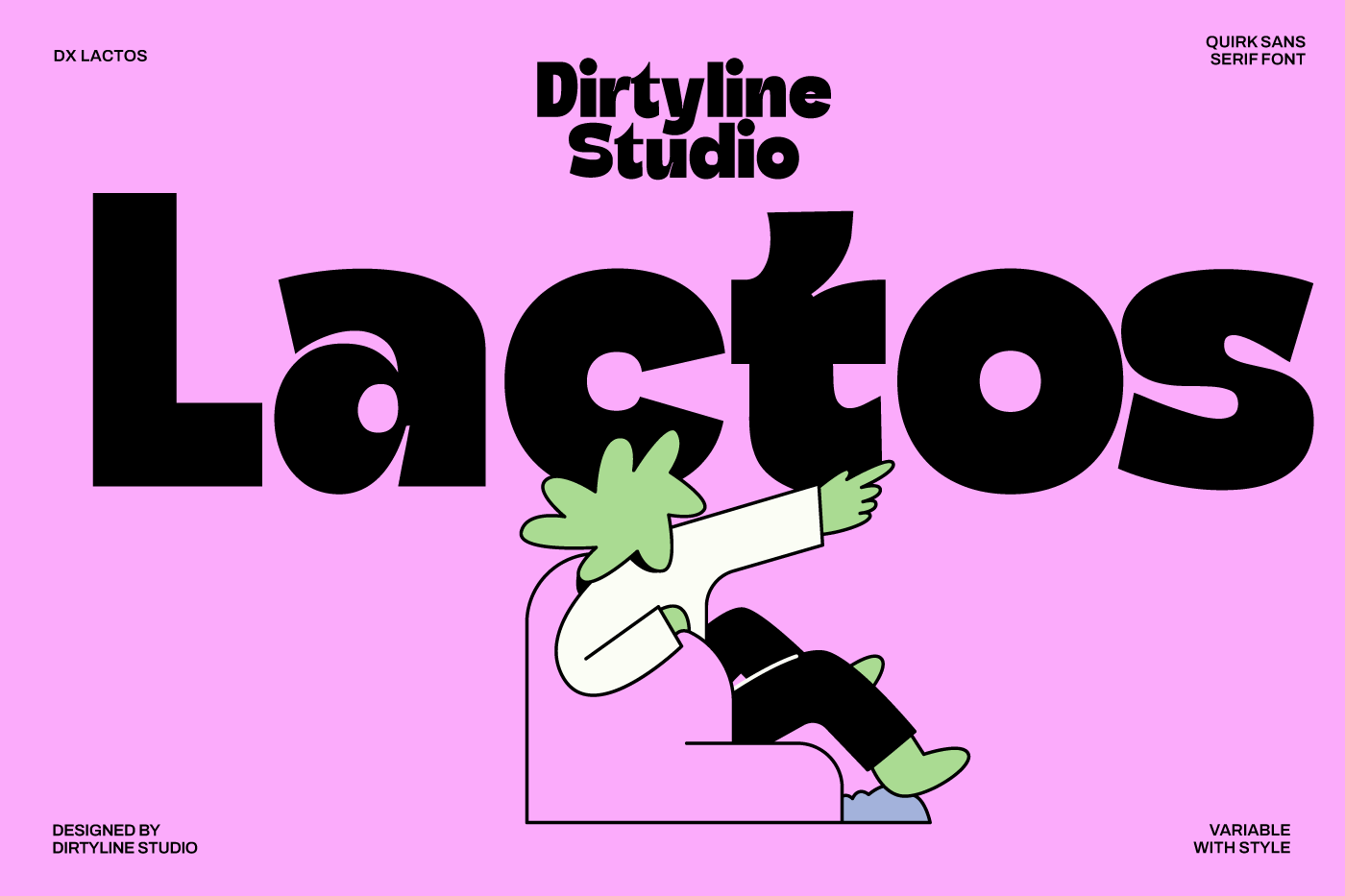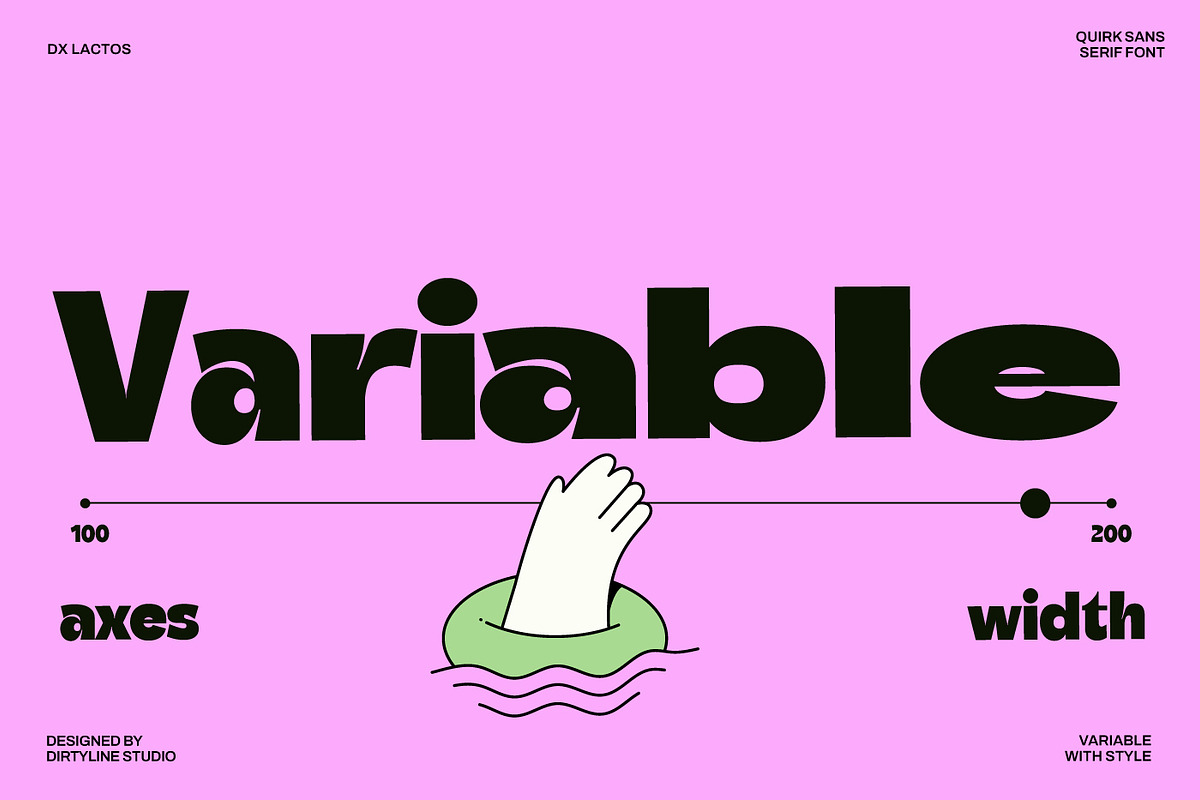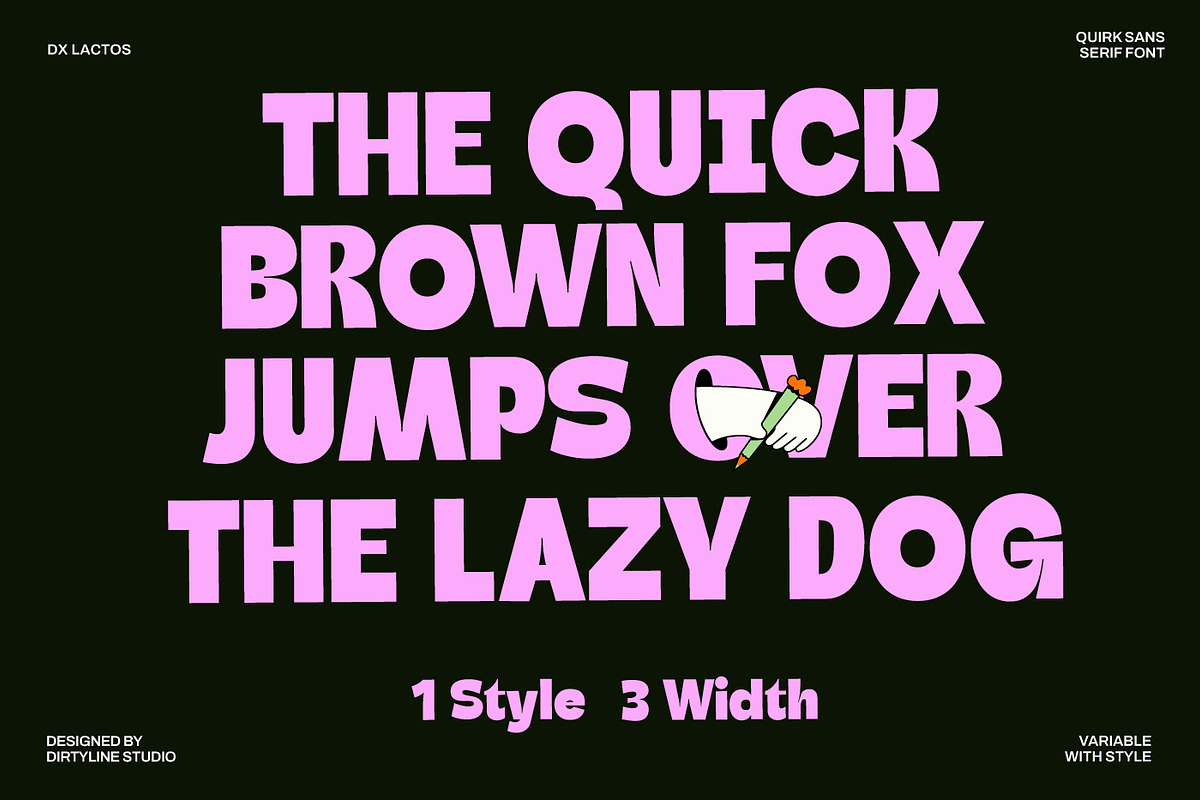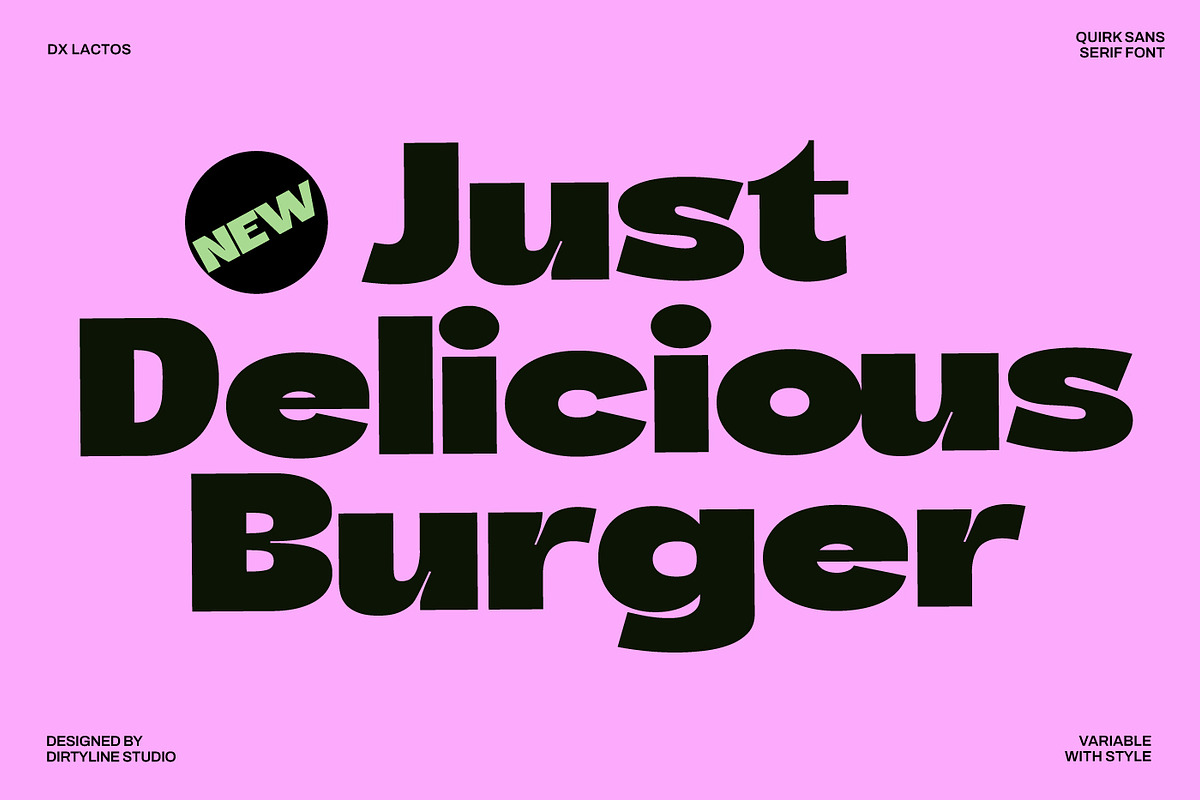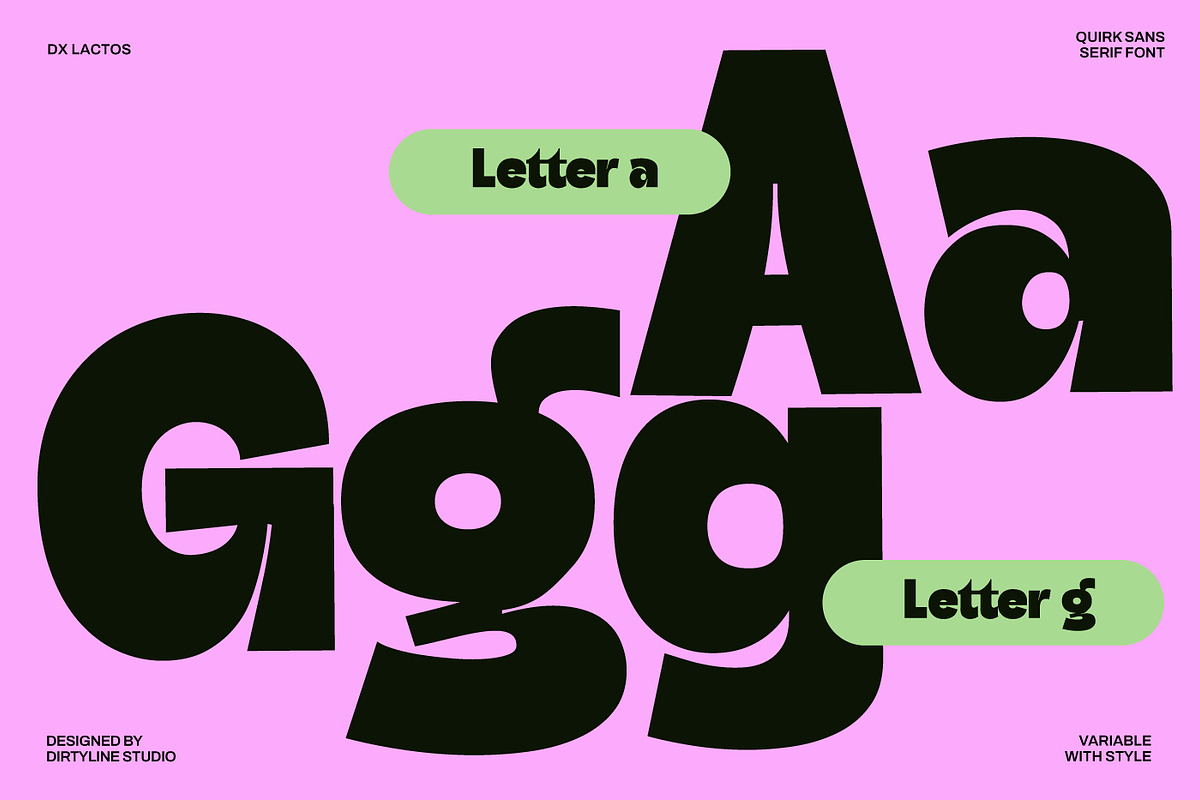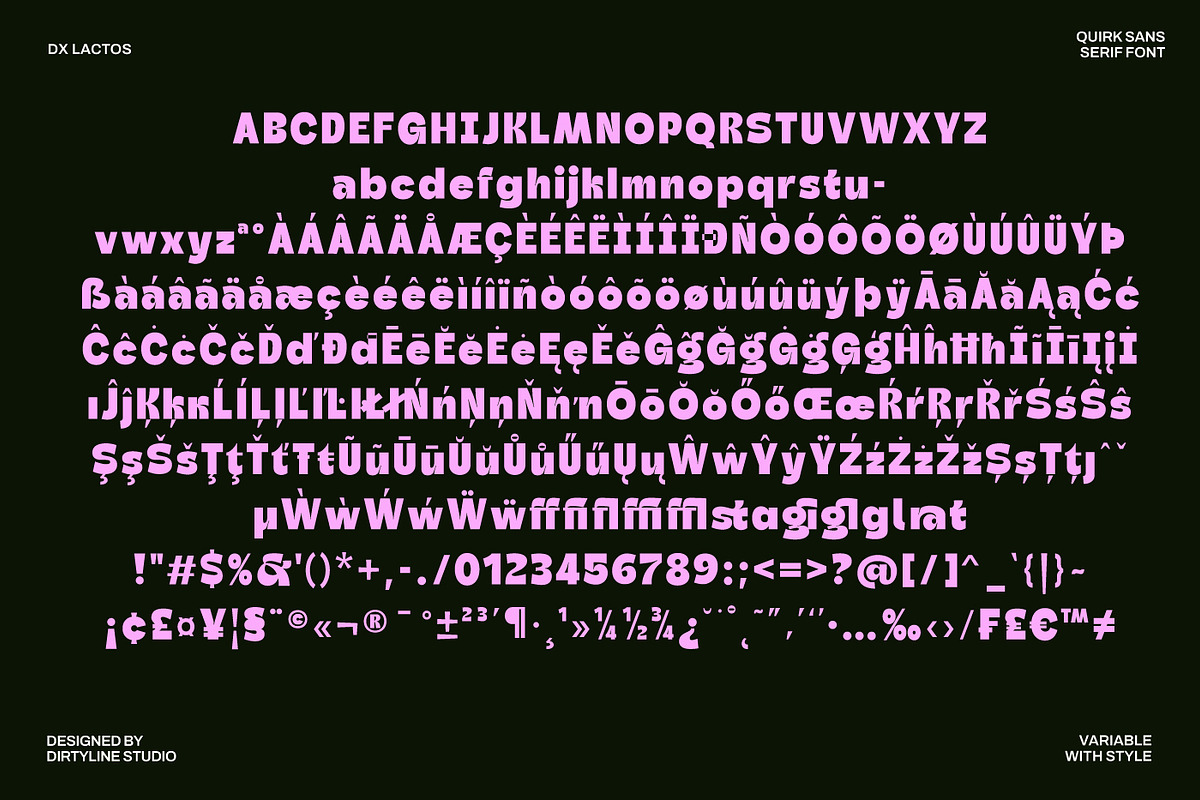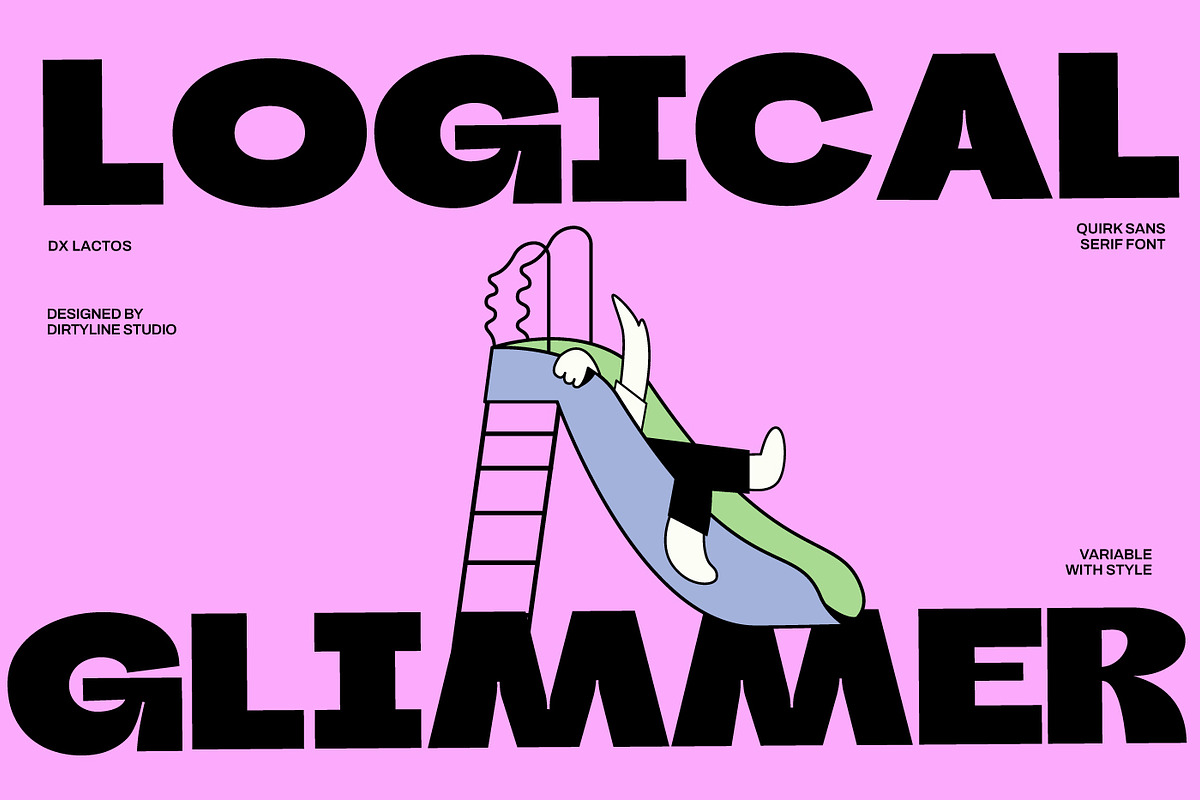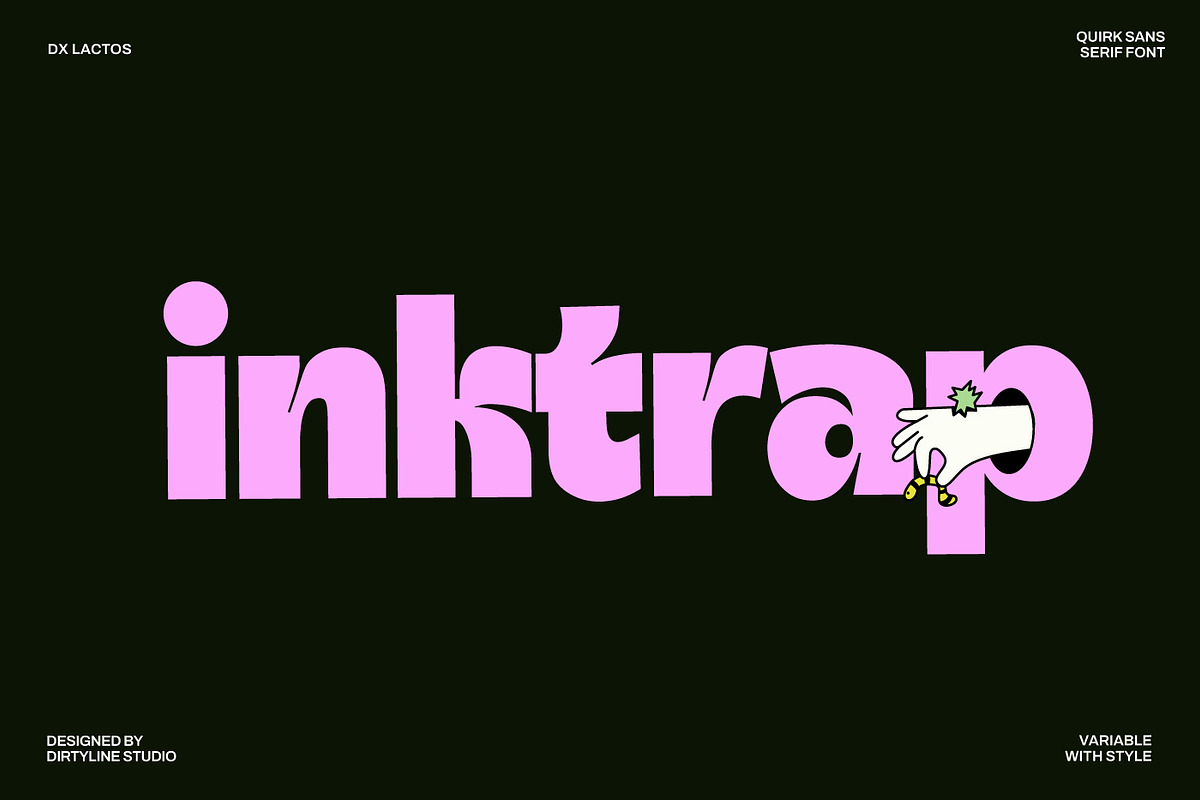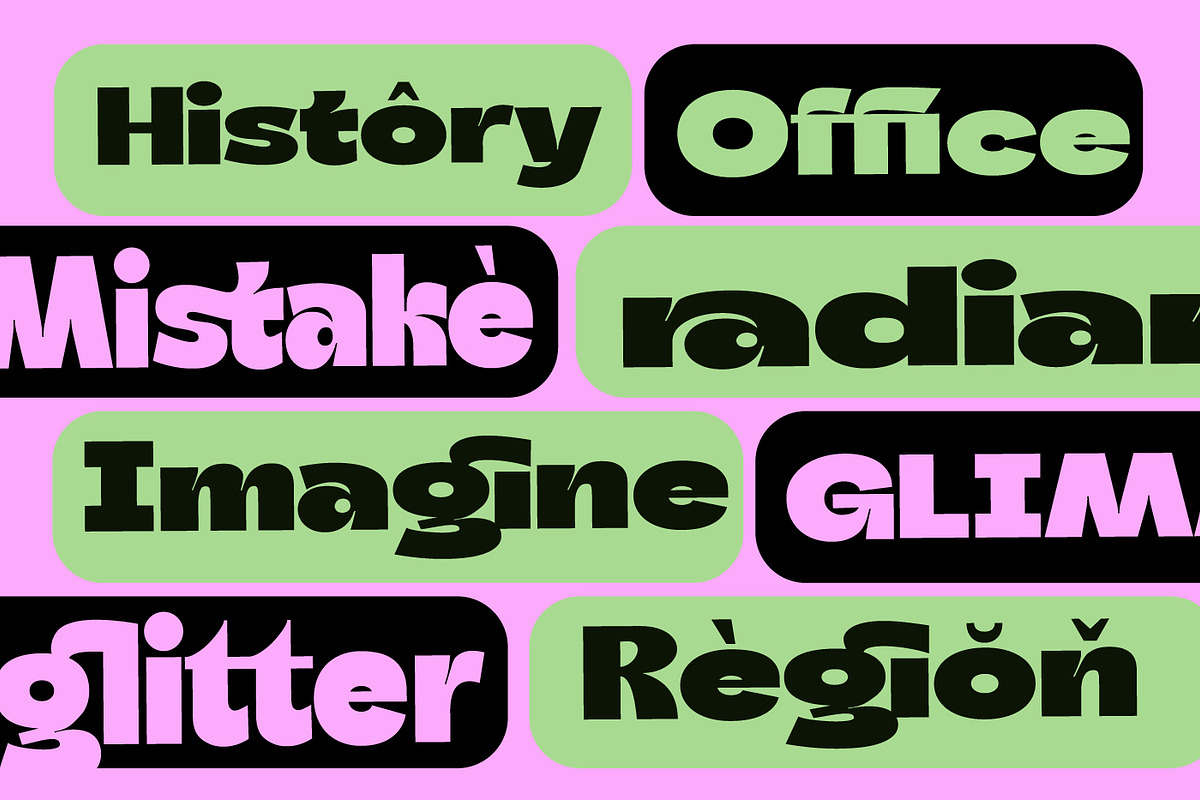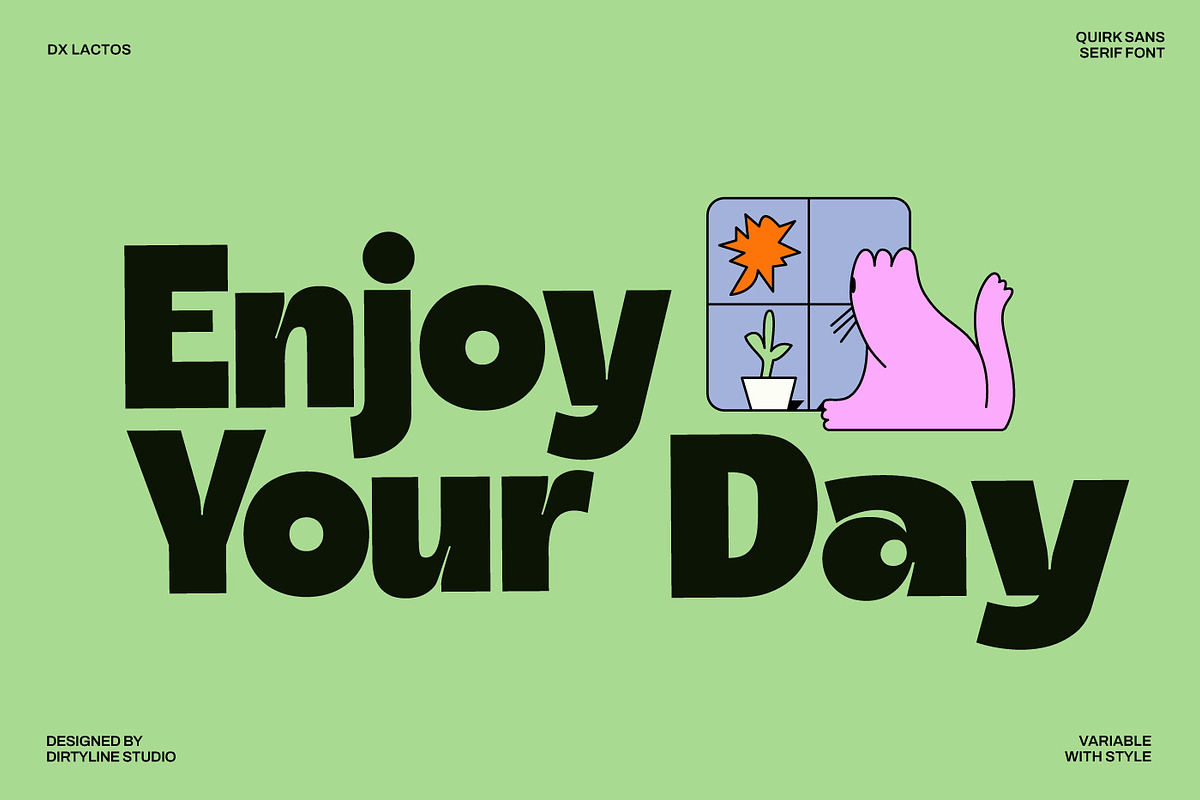
Dx Lactos - Quirk Font Variable
Introducing Dx Lactos, a font that breaks boundaries with its boldness and variable width, exuding a sense of fun and quirkiness. Designed to make an immediate impact, this font thrives in environments where grabbing attention is paramount. Its expanded and playful demeanor perfectly complements promotional materials for movies and series, seamlessly aligning with the aesthetic demands of leading entertainment platforms.
As a web font, Dx Lactos shines in delivering striking H1, H2, and H3 titles, ensuring readability and engagement in the digital realm. Whether it’s on a poster, website, or social media platform, Dx Lactos injects a burst of energy and personality, captivating audiences and leaving a lasting impression.